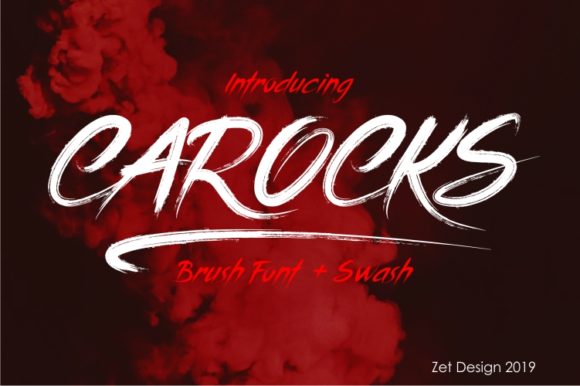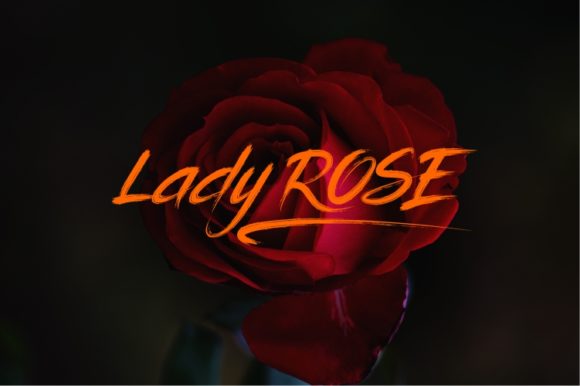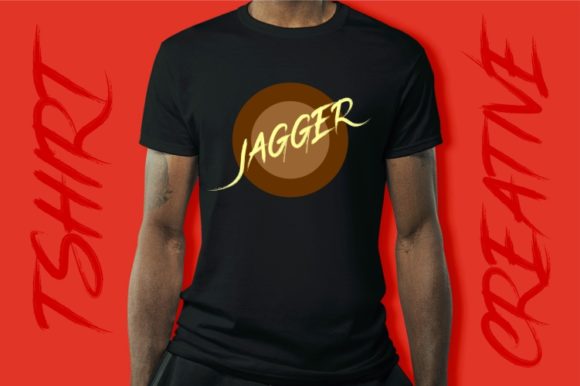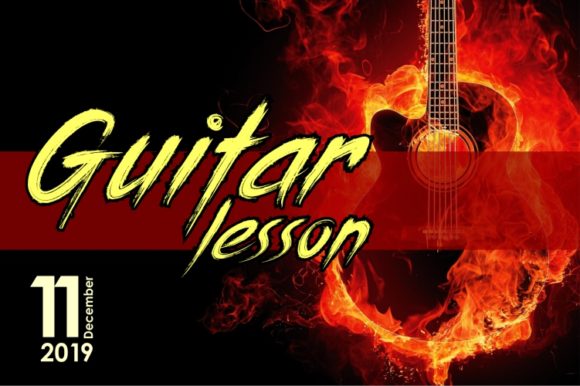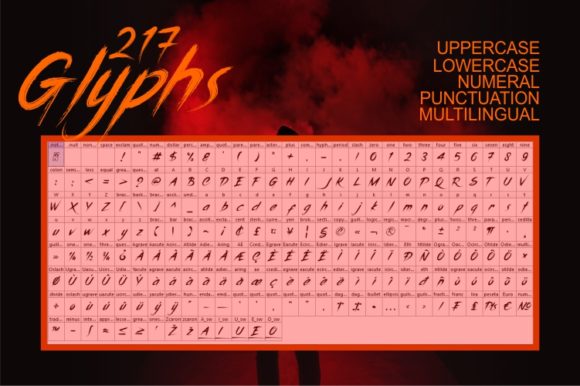
HomeScript FontsCarocks Font Script Fonts Carocks Font FacebookXPinterestWhatsApp Carocks Font Poster 2 Carocks Font Poster 3 Carocks Font Poster 4 Carocks Font Poster 5 About Carocks Font Carocks is a bold script with a unique style. It will add a cool vibe to any teen- or music-themed project. DOWNLOAD ON CREATIVE FABRICAThis font is sold and delivered by Creative Fabrica. Font Canyon may earn a commission if you buy through this link. People also explored Profumo Malinda Font JY Raj Brithasdine Font Snowing Font Maheswari Font Kemilang Font Dwelling Font Writer Font 334 0 TagsCarocks Font Previous articlePrima Donna FontNext articleCatherina Font LEAVE A REPLY Cancel reply Comment: Please enter your comment! Name:* Please enter your name here Email:* You have entered an incorrect email address! Please enter your email address here Website: Save my name, email, and website in this browser for the next time I comment. Personal Use Free Husky Stash Personal Use Free Read more about this font GoodFay Personal Use Free Read more about this font Gdynia Personal Use Free Read more about this font First Be Lucky Personal Use Free Read more about this font BLOG Exploring Font Trends Shaping Communication in the Digital Era Fonts, like all design elements, are subject to trends. They play a crucial role in communicating a brand's personality,... How to Install and Use Fonts on Windows, macOS, and Web Projects Best Fonts for YouTube Videos: Make Your Thumbnails Stand Out Modern Sans-Serif Fonts That Brands Love in 2025